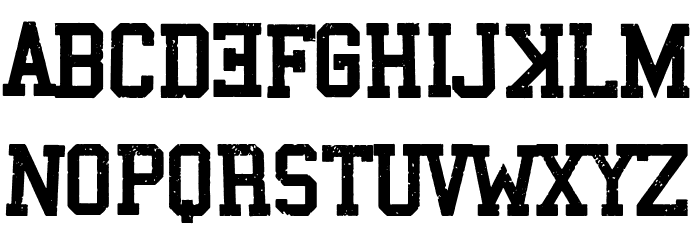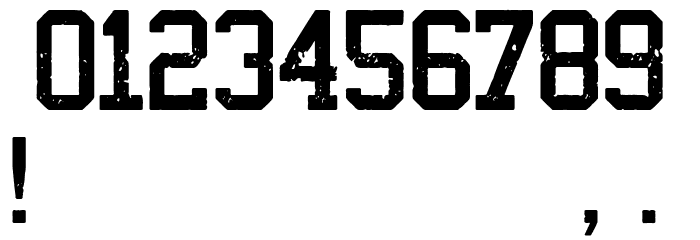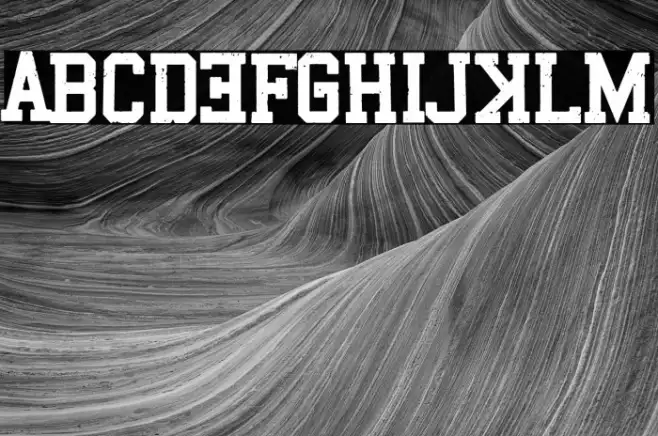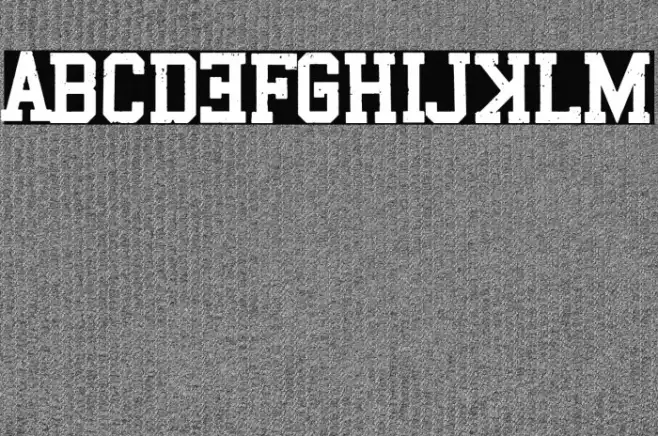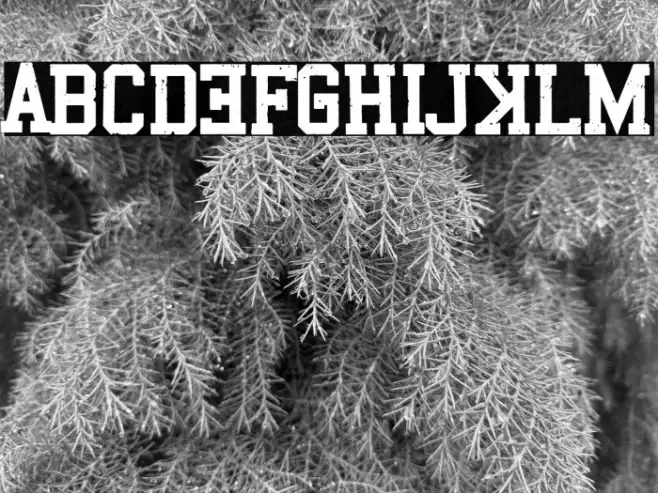
Drunk College Font
This font features a bold, distressed style with a vintage, collegiate feel. The characters are blocky and robust, with a textured appearance that suggests wear and age, adding a rugged charm. The uppercase letters are prominent, and the numbers follow the same bold, textured design. The special characters maintain the same aesthetic, ensuring consistency across all glyphs. This font is ideal for projects that require a strong, impactful presence with a touch of nostalgia.
A bold, distressed font with a vintage collegiate style.
- Font: Drunk College
- Proposed Projects: Ideal for sports team branding, vintage posters, apparel design, and retro-themed events.
- Category: Slab Serif
- Overall Style: Vintage